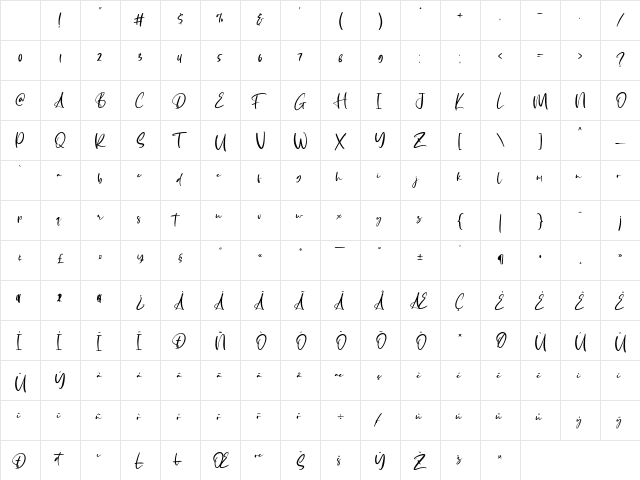
Complete Big Dreams Regular glyph index. Displaying only characters natively supported by Big Dreams Regular font.
Big Dreams is a composed and adaptable typeface that performs quietly and consistently across a wide range of design contexts.